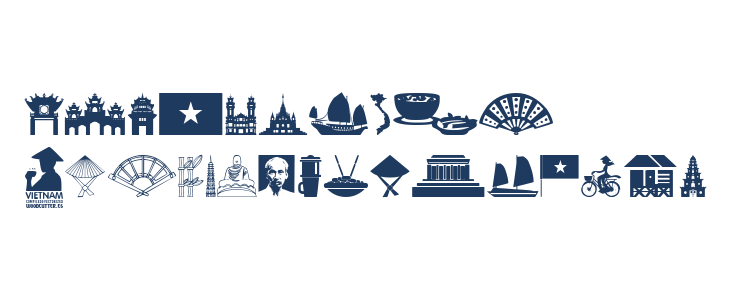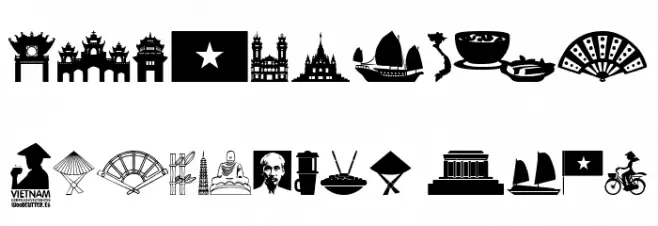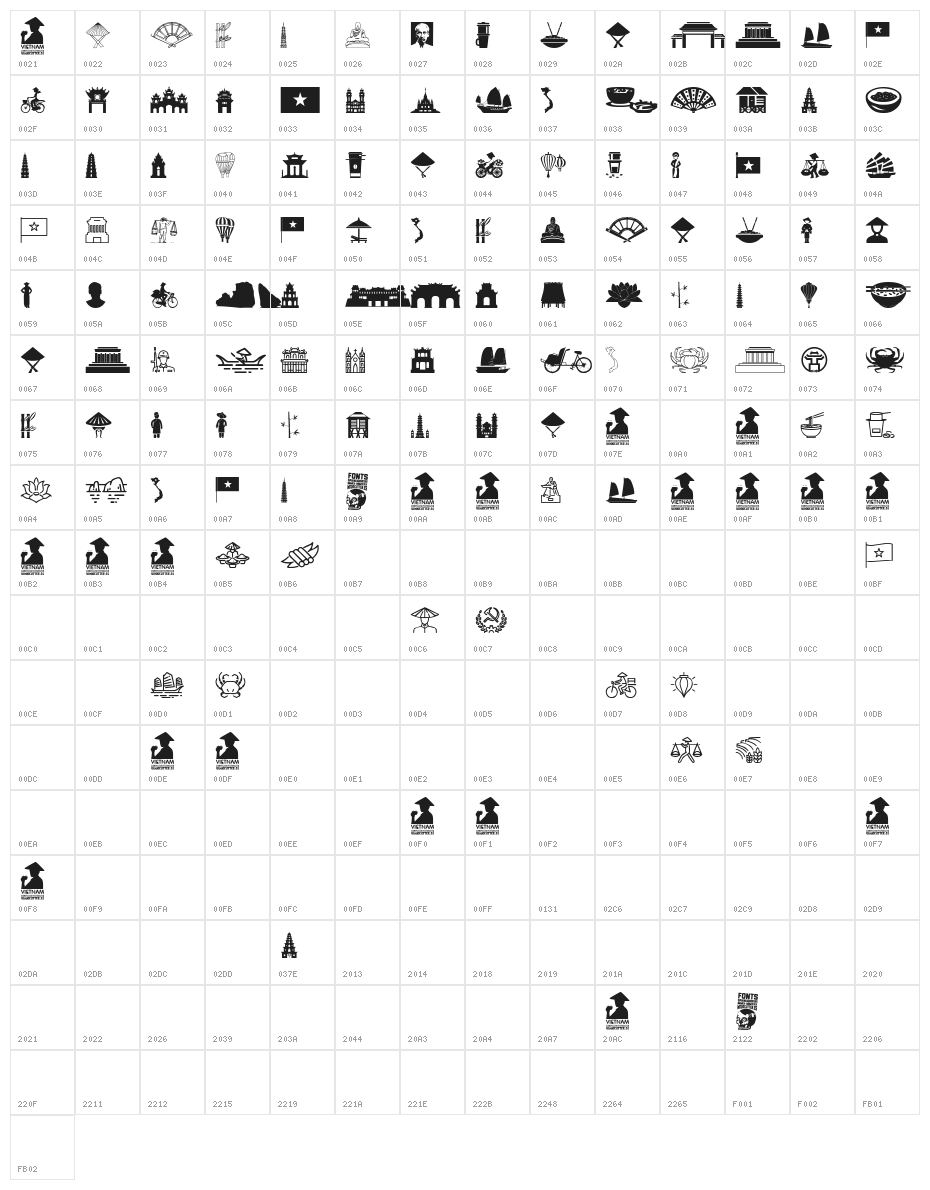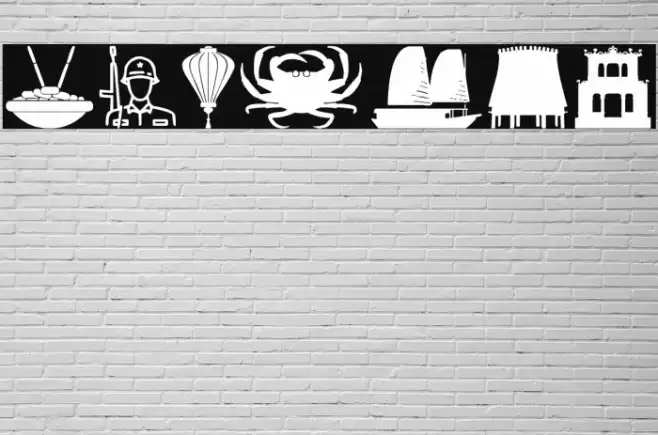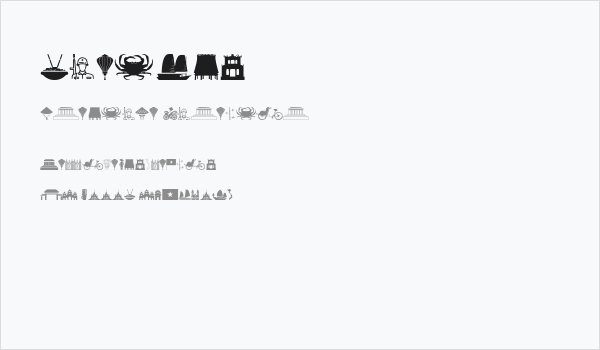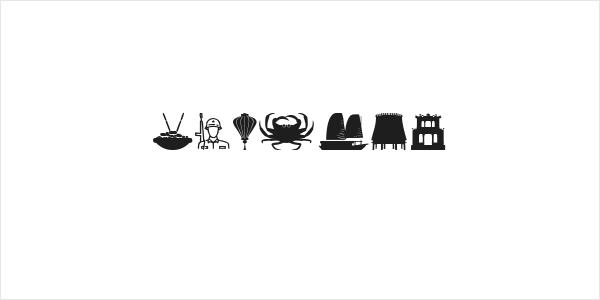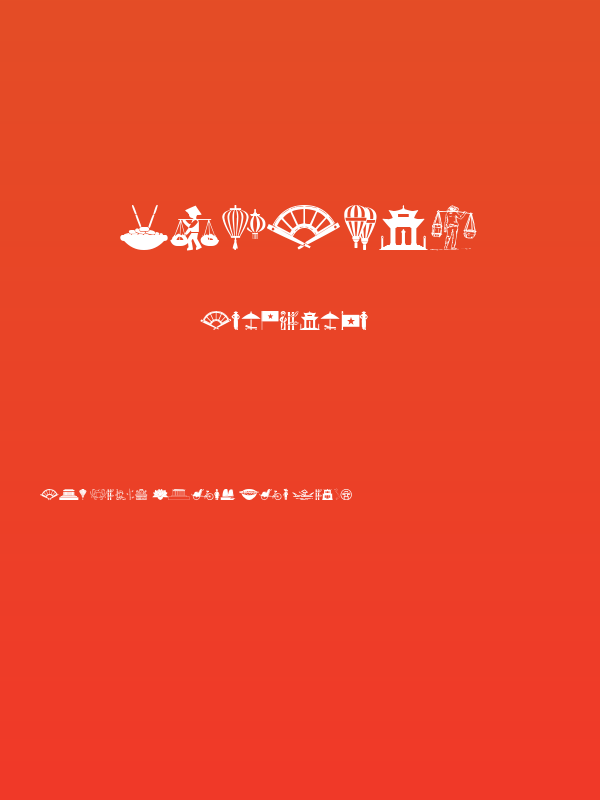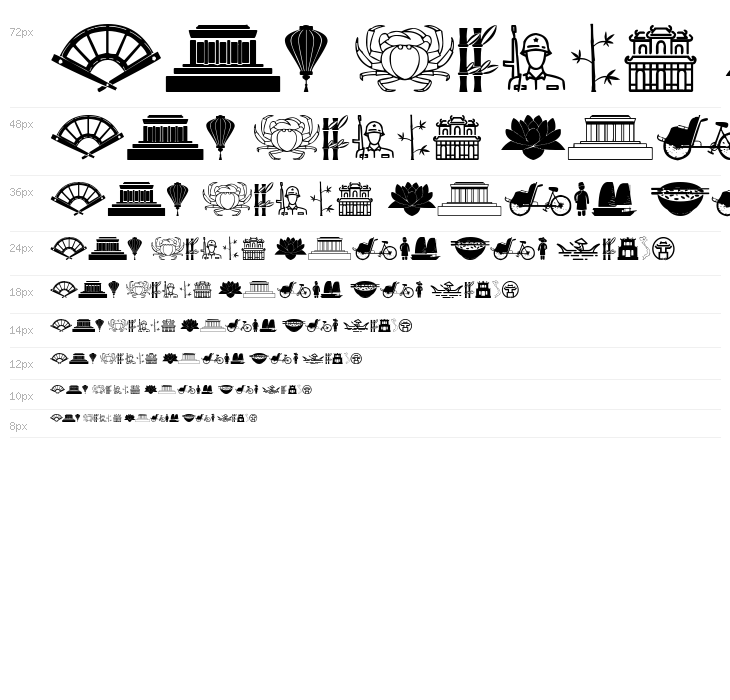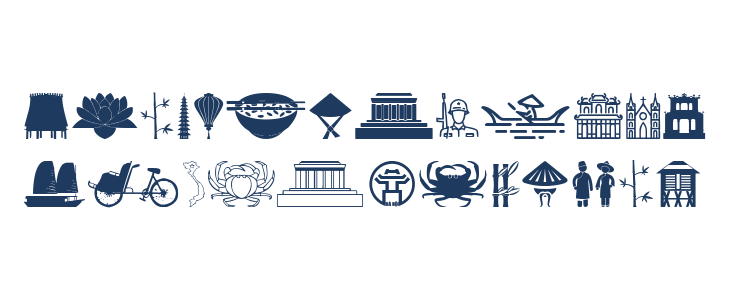
Vietnam Font
Vietnam Description
This collection features a variety of icons representing Vietnamese culture and landmarks. The icons include traditional hats, bicycles, lanterns, and famous structures like pagodas and temples. Each symbol is crafted with a focus on cultural significance, capturing the essence of Vietnam's rich heritage. The designs are bold and clear, making them suitable for various applications. The icons are presented in a monochrome style, emphasizing simplicity and elegance. This set is perfect for projects that aim to highlight Vietnamese culture, tourism, or educational content.
| Use Case | Logos, Icons, Cultural Projects |
| Proposed Projects | Ideal for cultural presentations, travel brochures, educational materials, and themed graphic designs. |